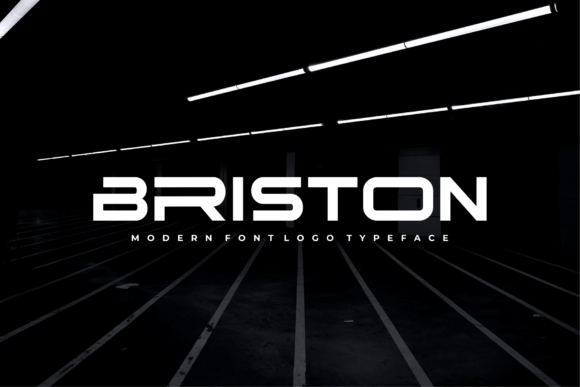
**Unleash the Power of Expression with Briston: The Ultimate Sans Serif Font for Captivating Creations**
Embark on a typographic journey that will ignite your imagination and empower your designs with the introduction of Briston, an extraordinary sans serif font that embodies strength and sophistication. Its unwavering lines, coupled with alluring curves, create a harmonious dance that captivates the senses.
Crafted with meticulous attention to detail by the esteemed Vroz Studio, Briston emerges as a versatile masterpiece, ready to elevate your creations to extraordinary heights. Its versatility knows no bounds, seamlessly adapting to a myriad of design applications, from striking logotypes and eye-catching signage to captivating apparel and social media campaigns.
Whether you're crafting compelling posters or commanding headlines, Briston's bold presence demands attention. Its large format prints radiate an aura of grandeur, leaving an unforgettable impact on any audience. Embrace the power of typography and elevate your designs with Briston, the ultimate sans serif font that empowers you to communicate with clarity, impact, and an unwavering sense of style.
Indulge in the limitless possibilities that Briston offers and unlock a world of typographic wonders. Let its solid lines and alluring curves inspire your creativity and transform your designs into captivating masterpieces that resonate with your audience.
**Briston: The Perfect Font for:**
* Logotypes
* Signage
* Branding
* Apparel
* Posters
* Social media
* Headlines
* Titles
* Large format prints